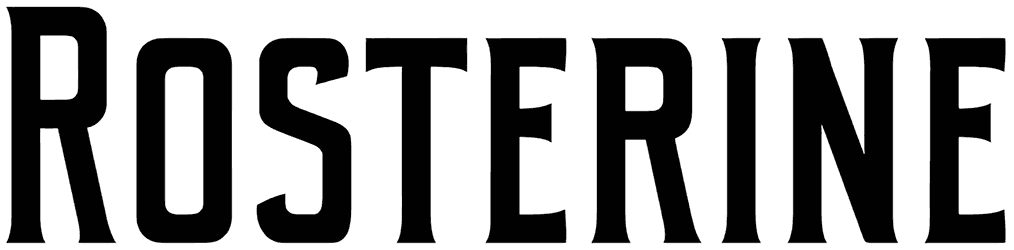
Rosterine Font
With a nostalgic and strong face, such as Rosterine, your innovative design can look unforgettable. This retro font consists of condensed and bold letters with a classic vibe but without lowercase support. As a fancy font, Rosterine can undoubtedly add a unique mood to your intended designs, for example, posters, movies, apparel, illustrations, and the rest.